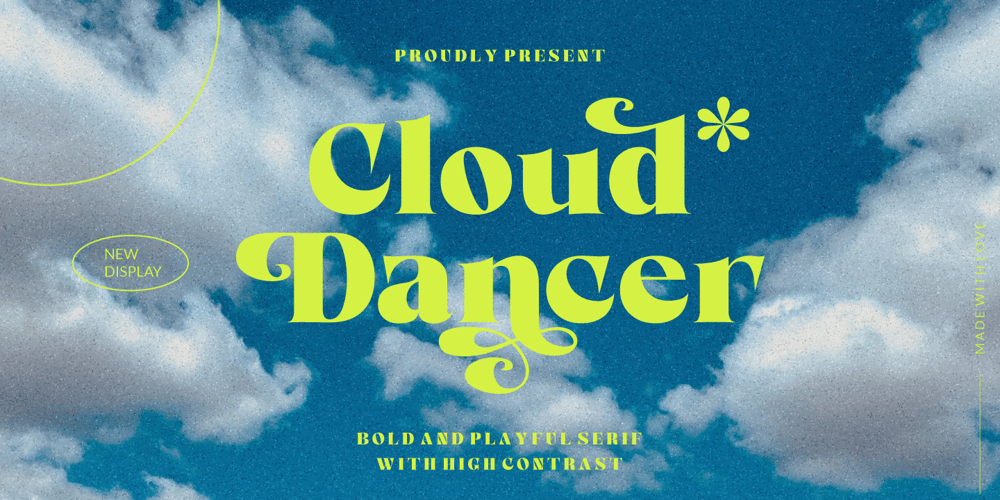
Cloud Dancer Font Family was designed by Risca Anitawati and published by Reyrey Blue Std. Cloud Dancer contains 1 styles and family package options. Say Hi to Cloud Dancer. It is bold and high-contrast display serif typeface with delightful nostalgic feeling. Cloud Dancer contain several stylistic alternates that can make it unique and different. This typeface is perfect for corporate identities, websites, publications, titles, books, magazines, business cards, logos, product labels, packaging, or any kind of advertising purpose.Features :· All Uppercase and Lowercase· Number & Symbol· Supported Languages· Alternates and Ligatures· PUA EncodedHope you enjoy with our font!